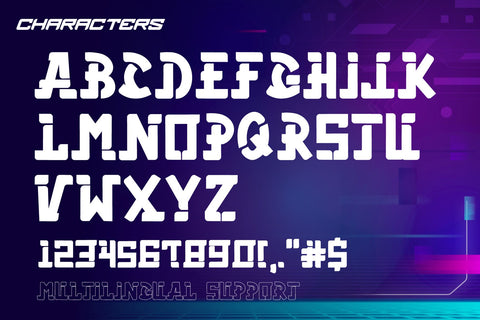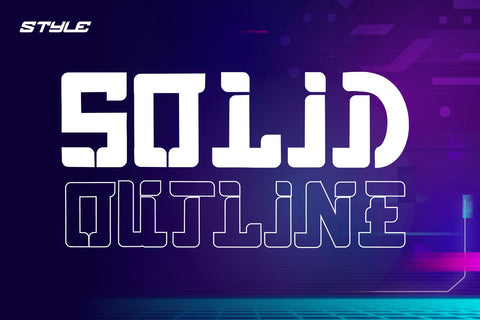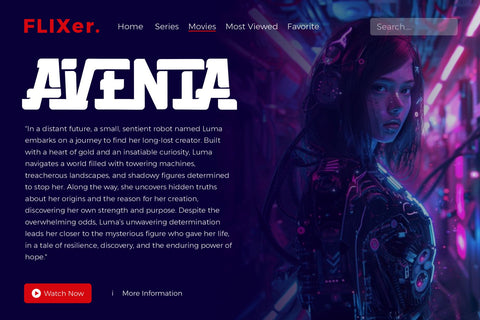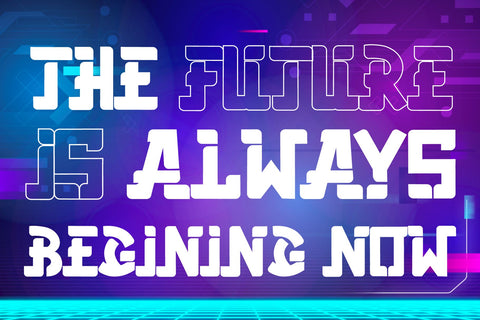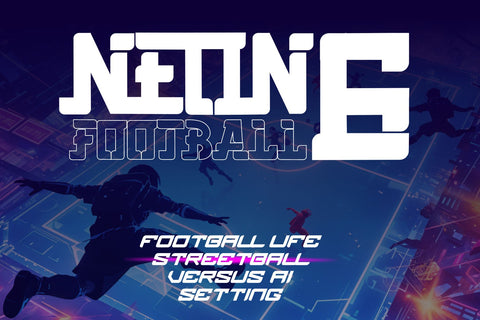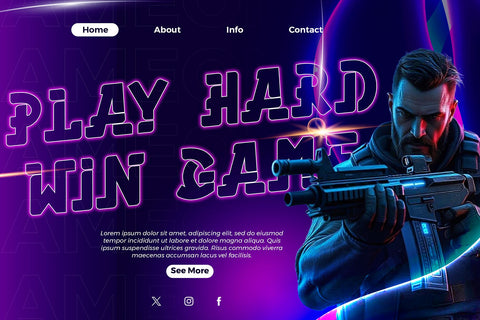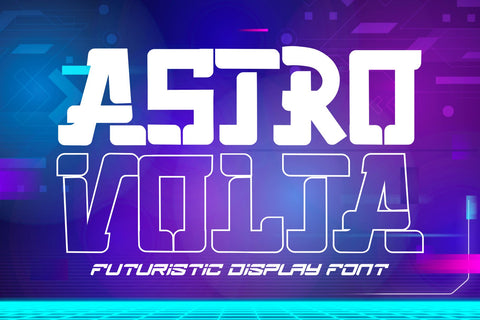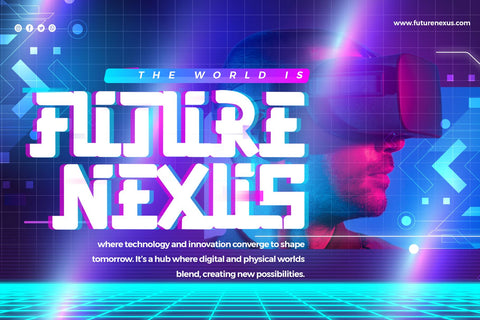
Astro Volta - Outlined Futuristic Display Font
Astro Volta is a cutting-edge futuristic display font that features two distinct styles: solid and outline. This font captures the sleek and modern essence of a futuristic world, making it perfect for projects that require a bold, sci-fi aesthetic. The solid style offers a strong, impactful look, while the outline style adds a sleek, airy feel, giving you versatile options for your design needs. Astro Volta is ideal for posters, logos, technology-themed projects, and any other creative work where a touch of the future is desired.
- Futuristic Characters